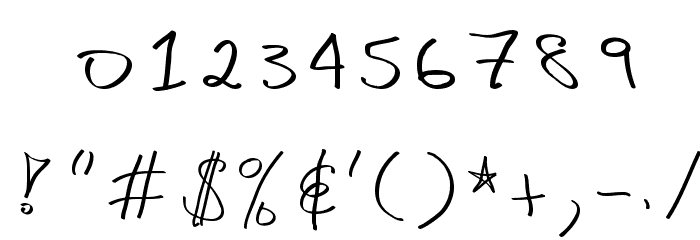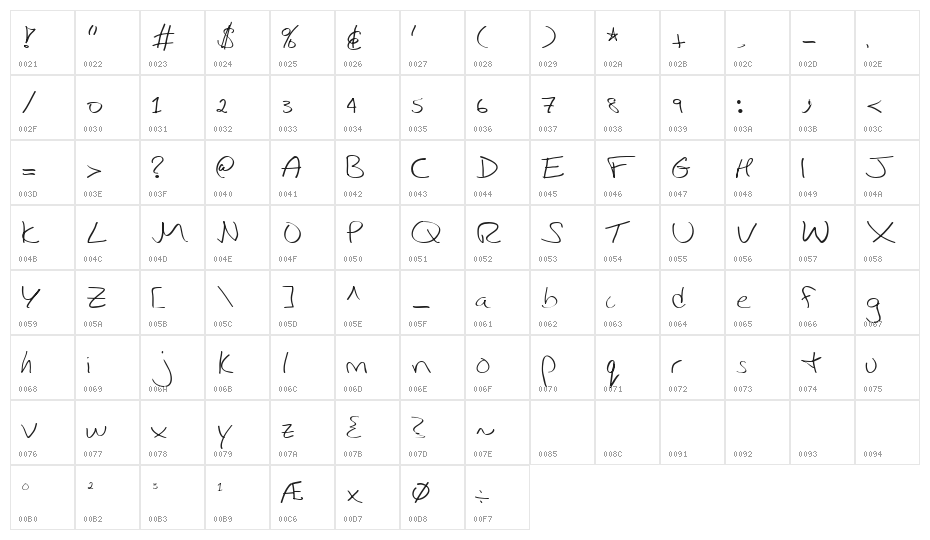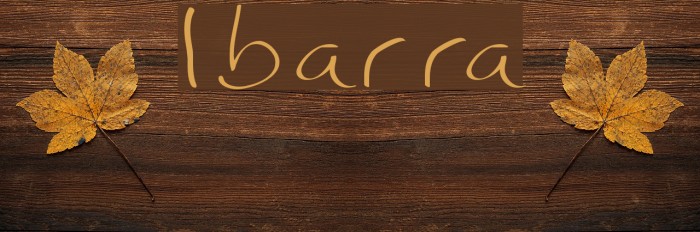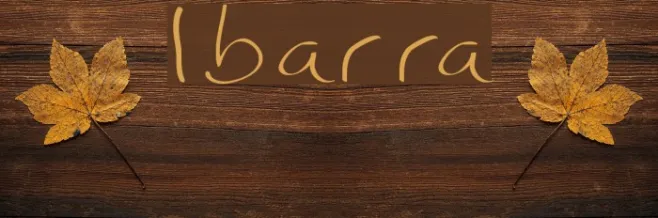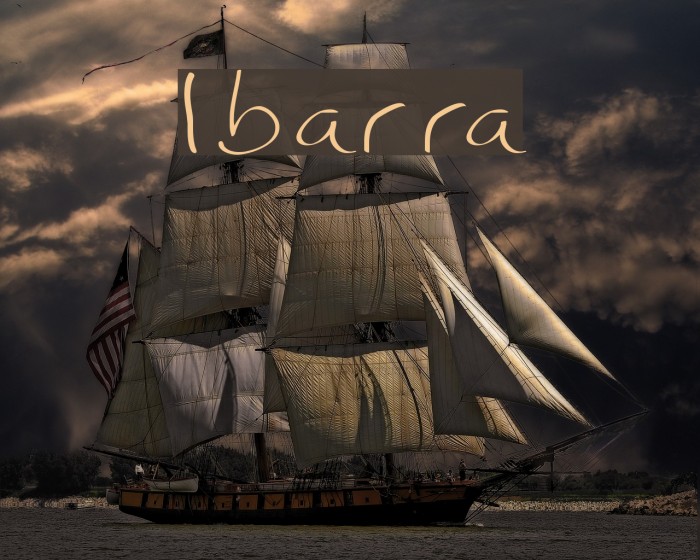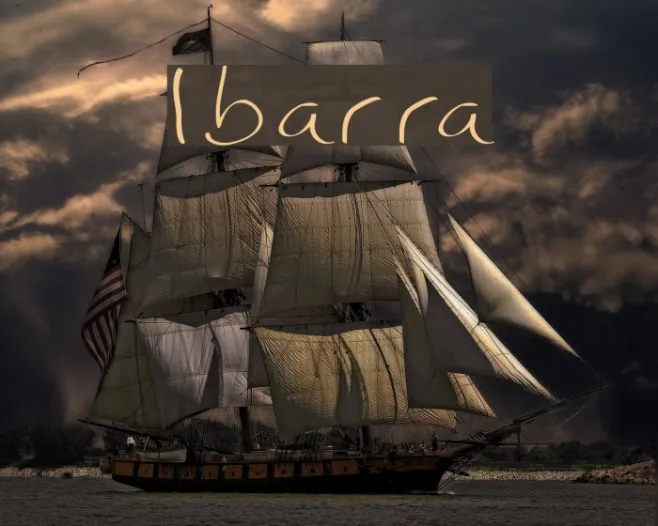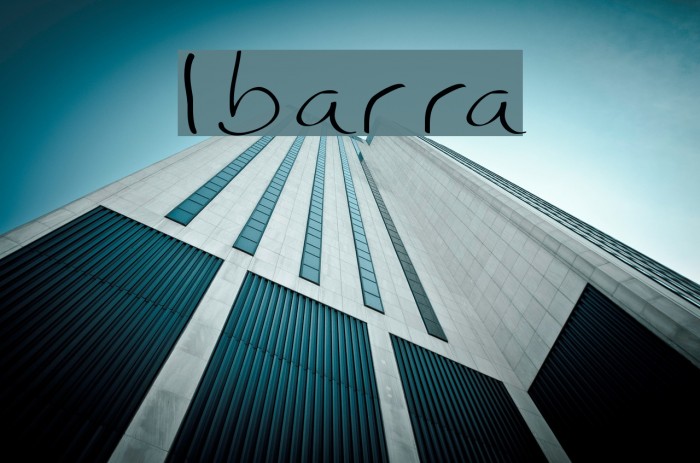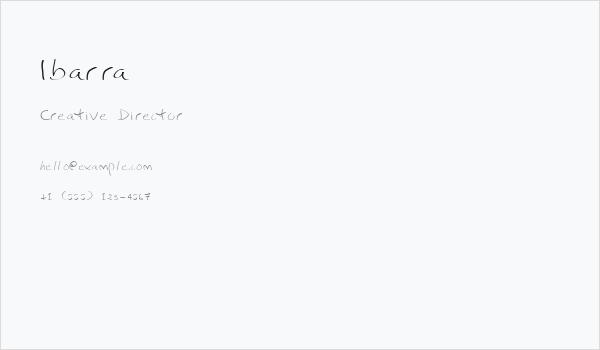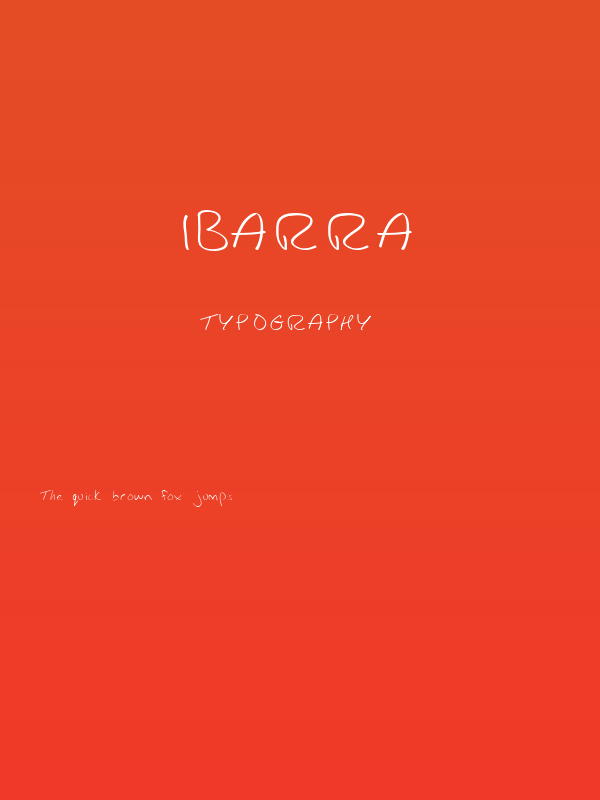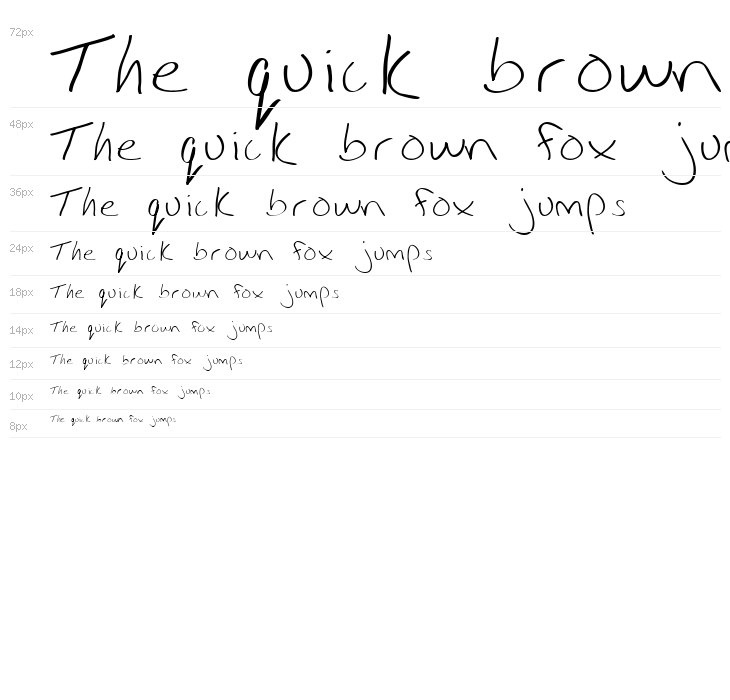
Ibarra Font
Ibarra Description
This font exhibits a casual, handwritten style with a playful and informal appearance. The characters are slightly irregular, mimicking the natural flow of handwriting. The strokes are smooth and fluid, with varying thickness that adds a personal touch. Uppercase letters maintain a consistent height, while lowercase letters show a slight slant, enhancing the organic feel. The numerals are clear and legible, matching the overall style. Special characters are creatively designed, maintaining the font's whimsical nature.
| Use Case | Logos, Informal text, Creative projects |
| Proposed Projects | Ideal for personal notes, greeting cards, informal invitations, and creative projects that require a personal touch. |